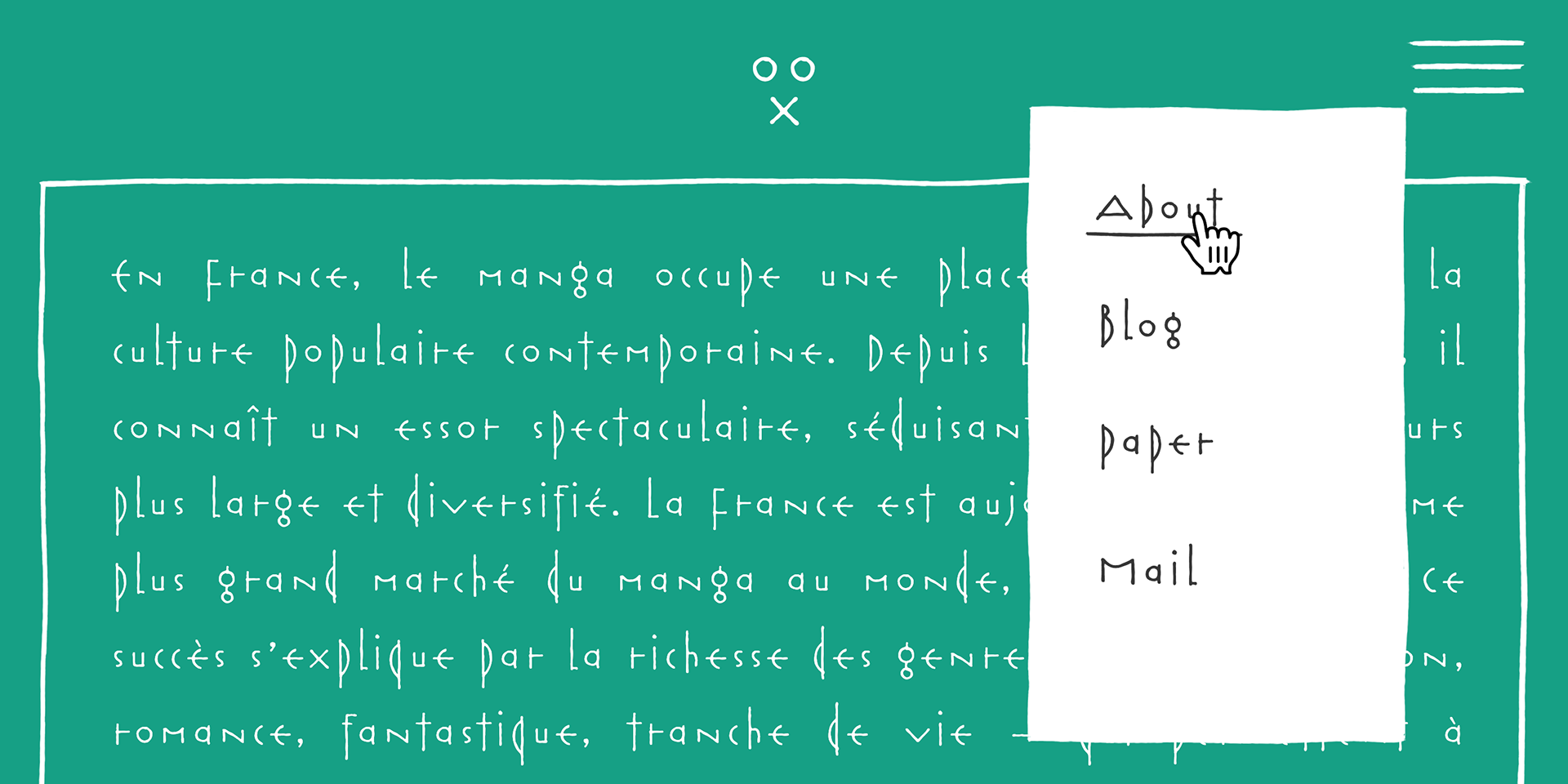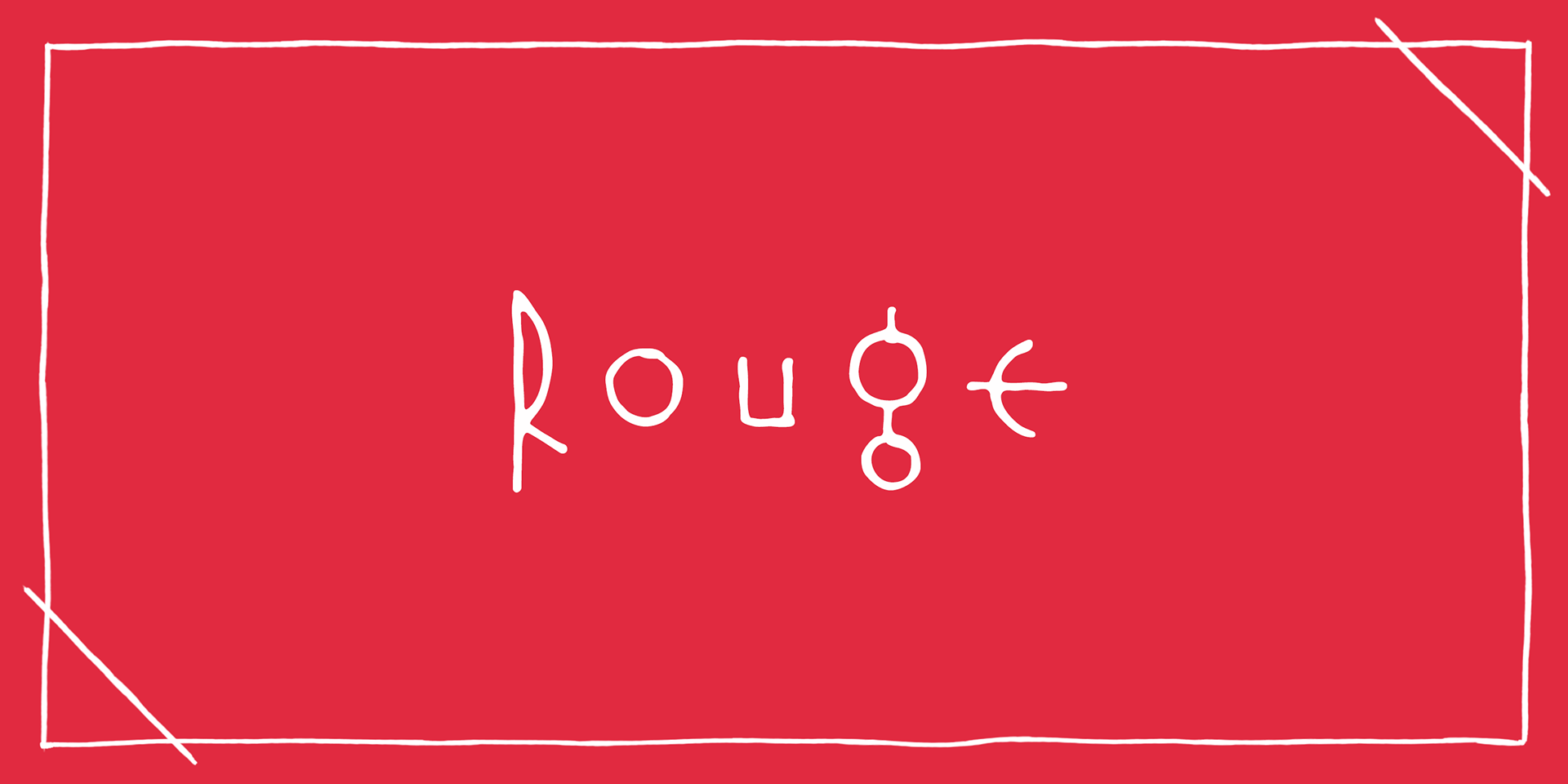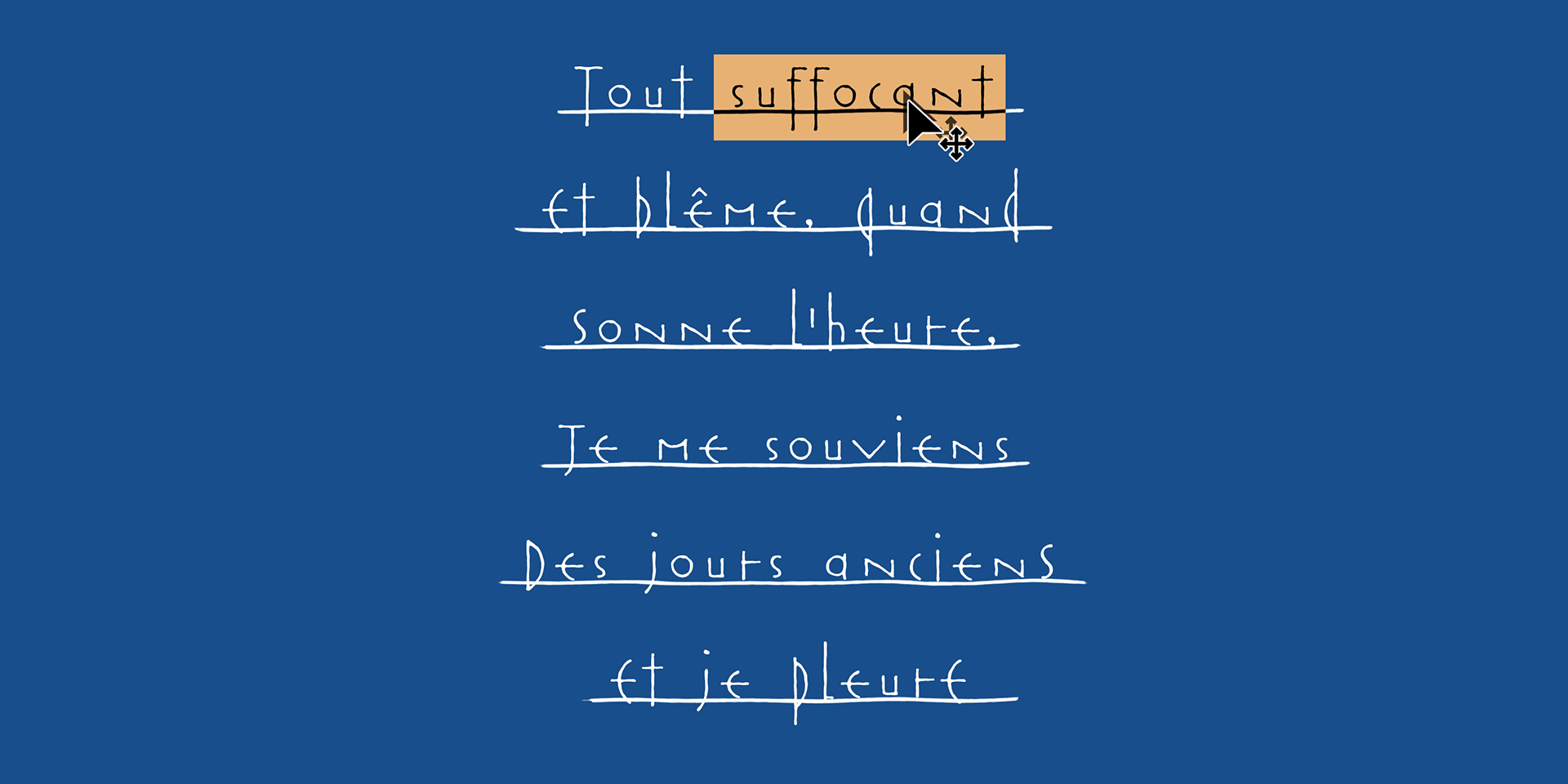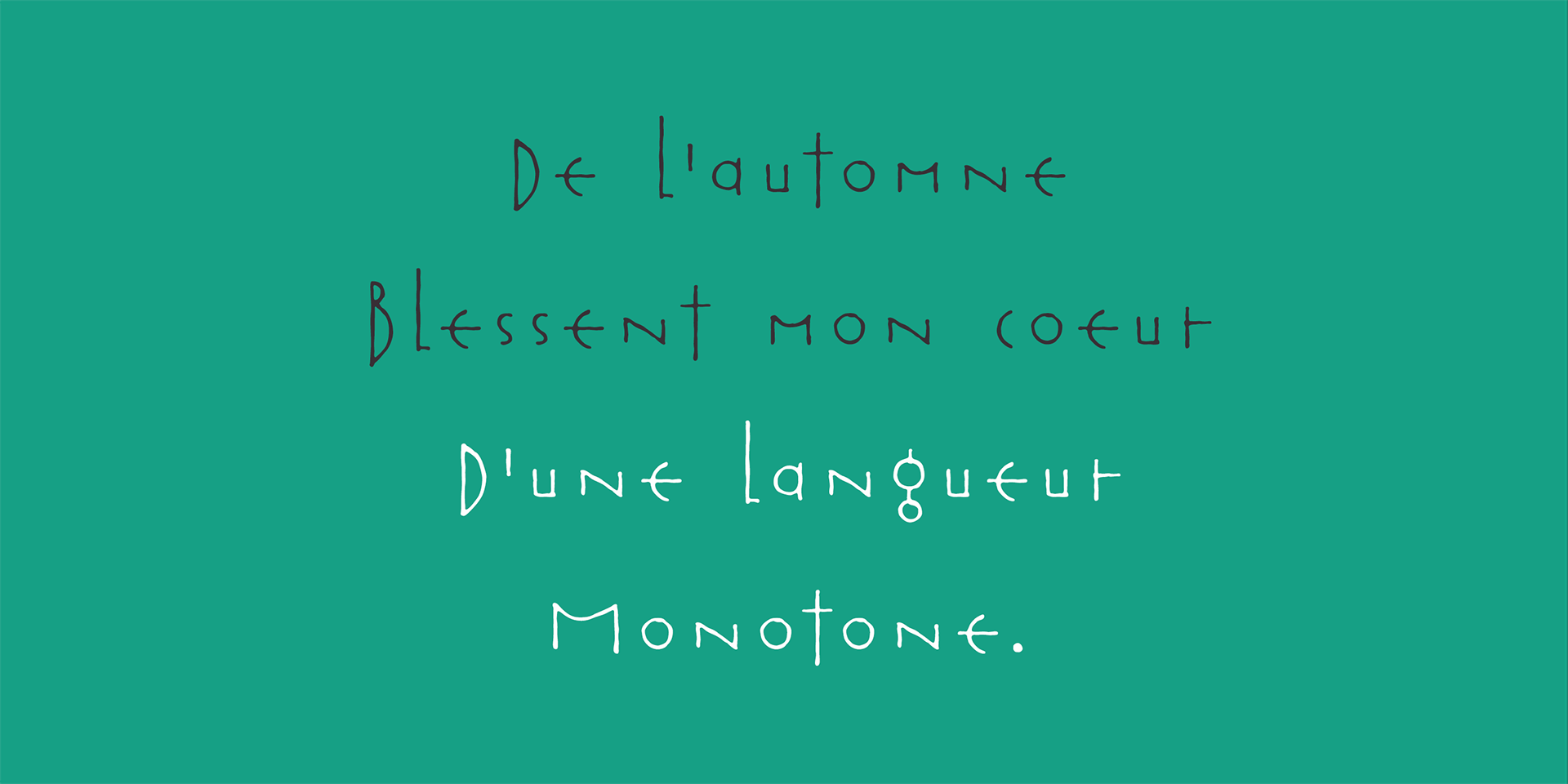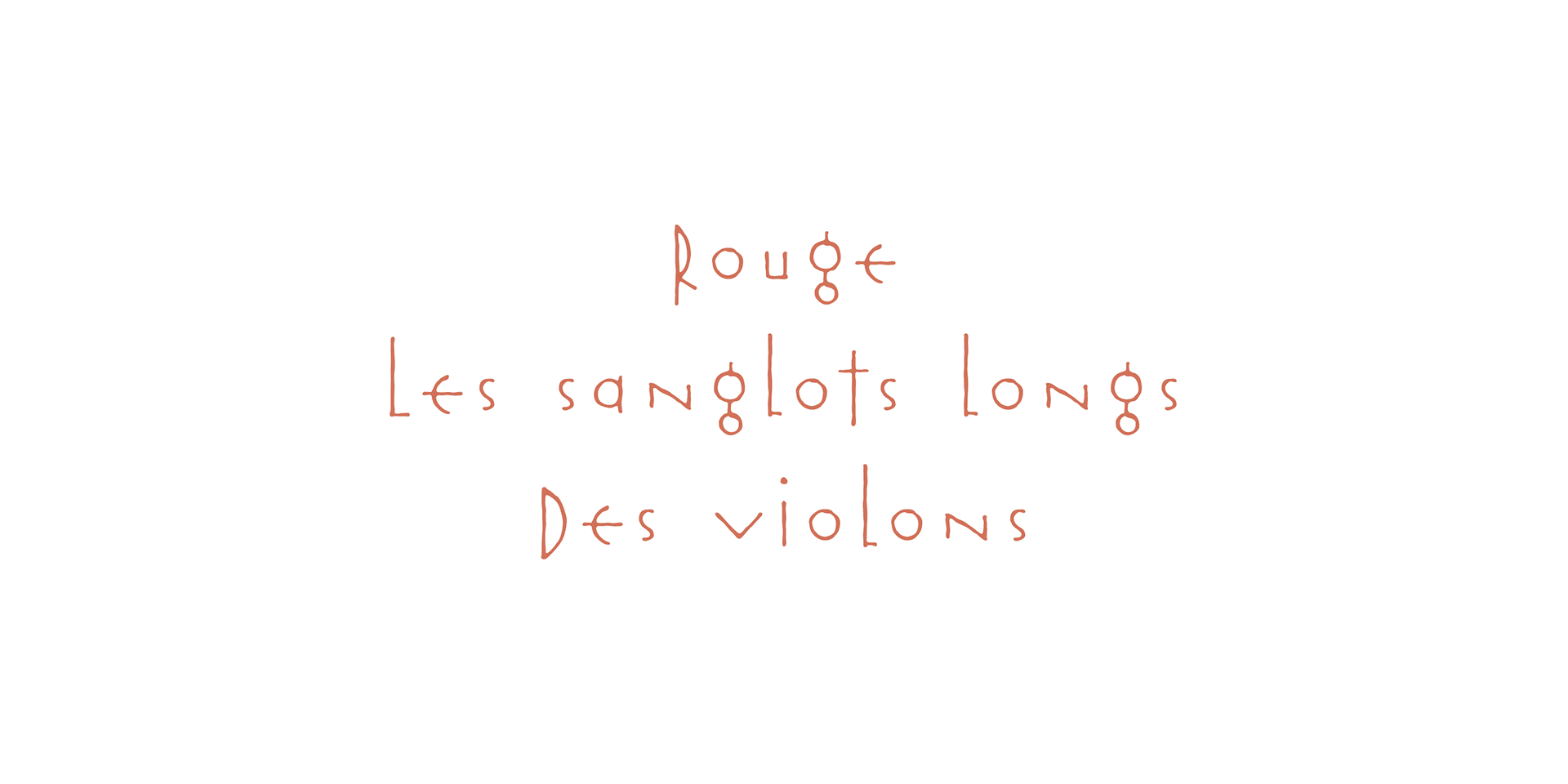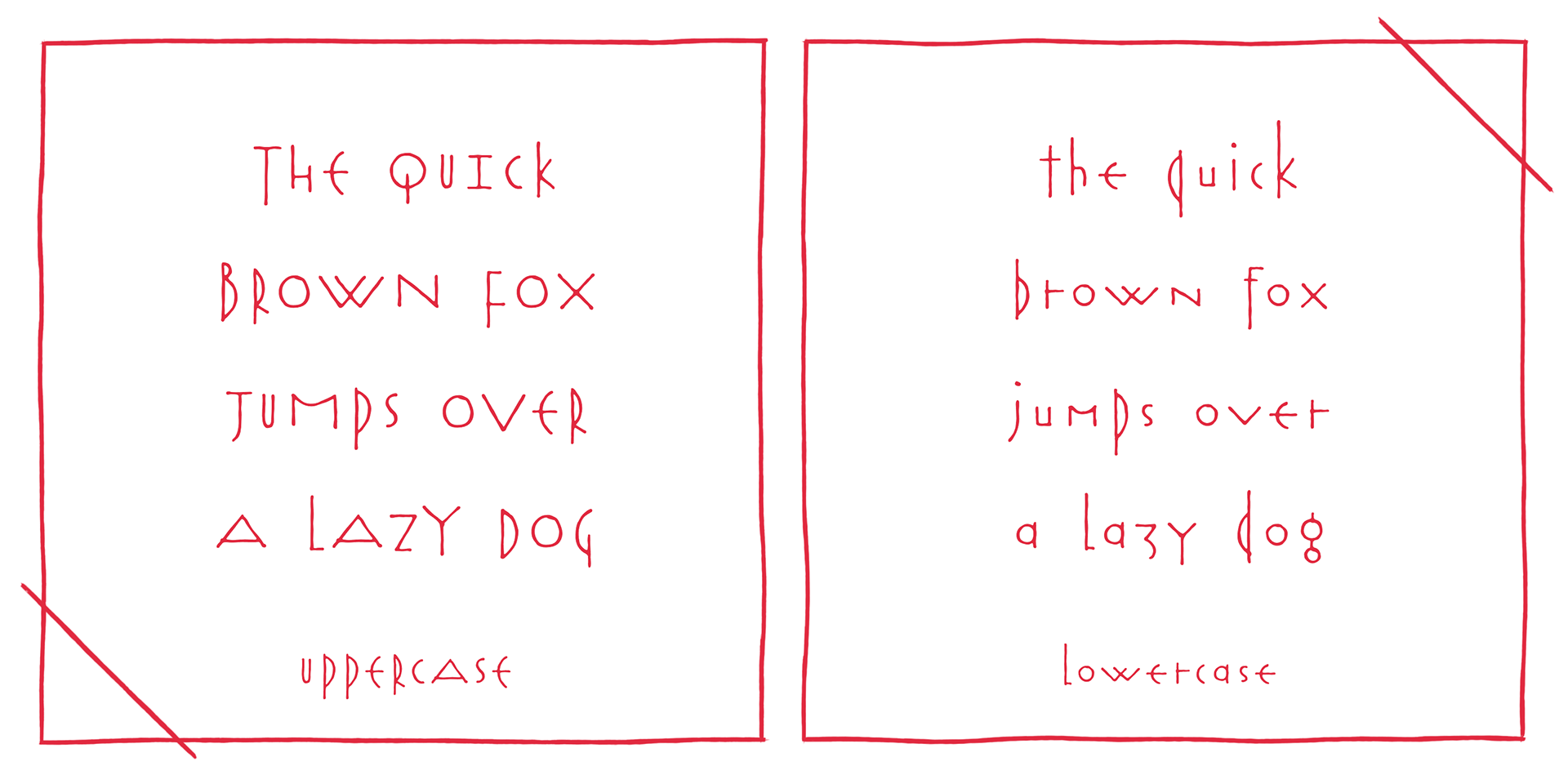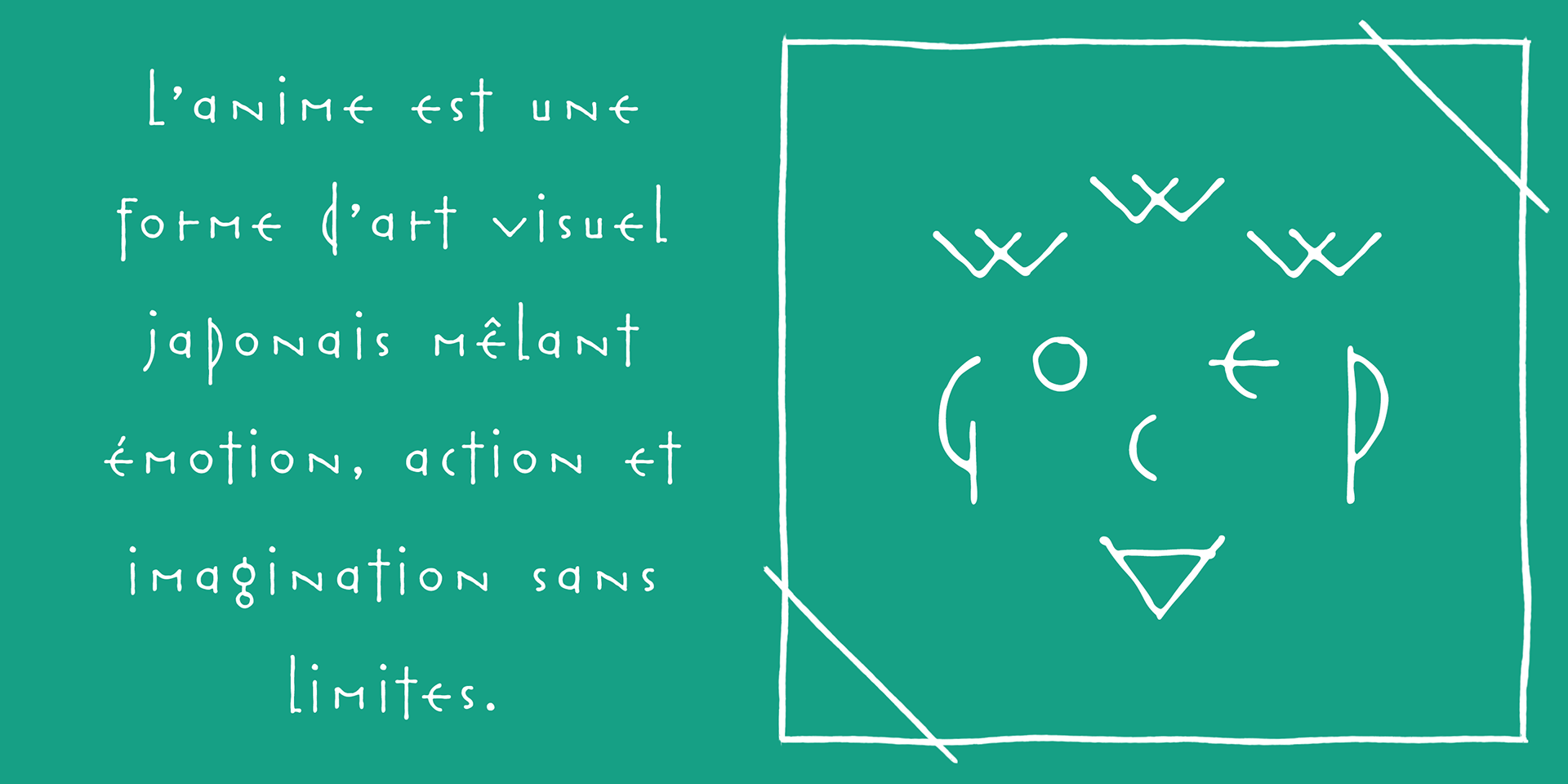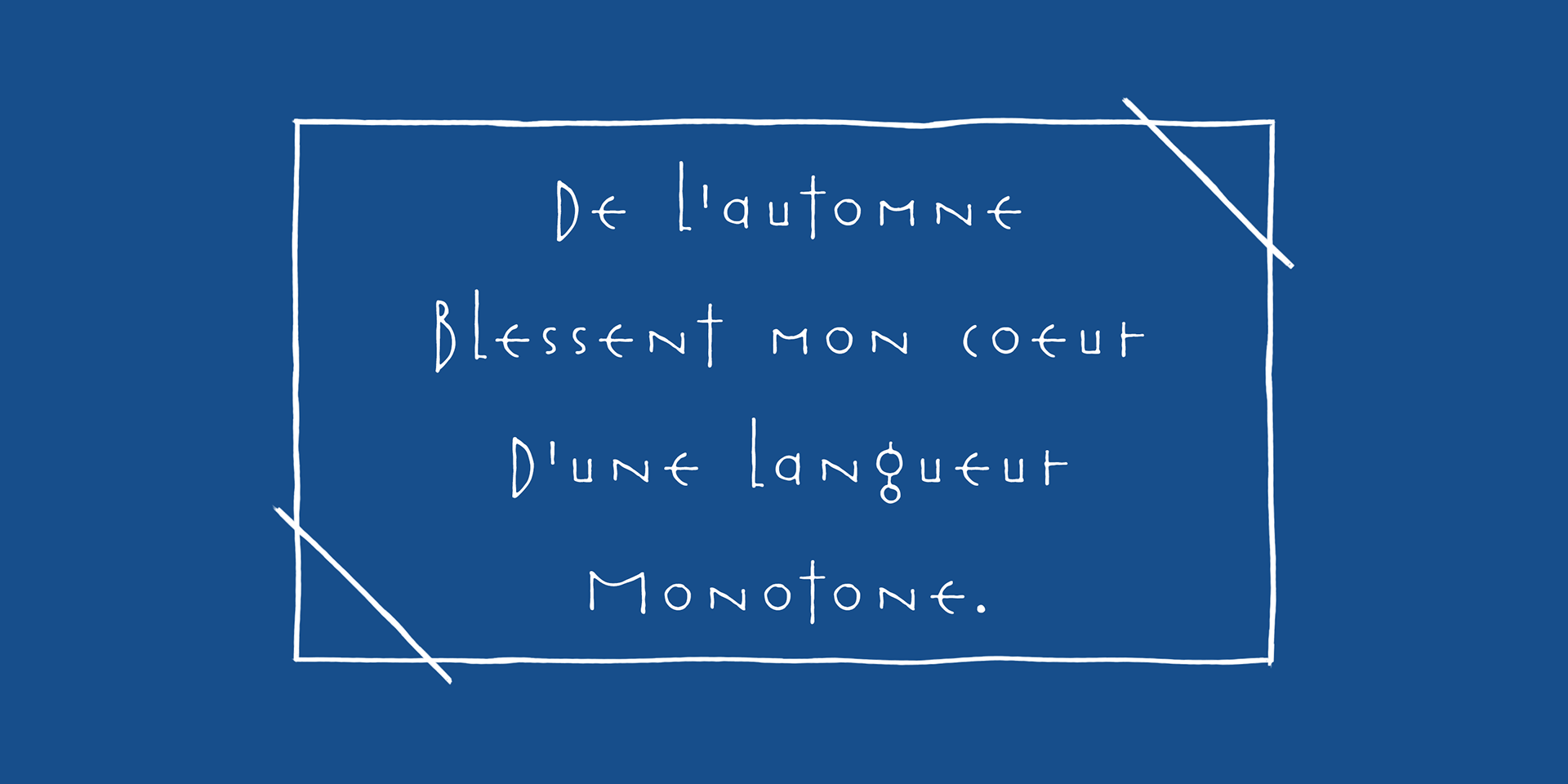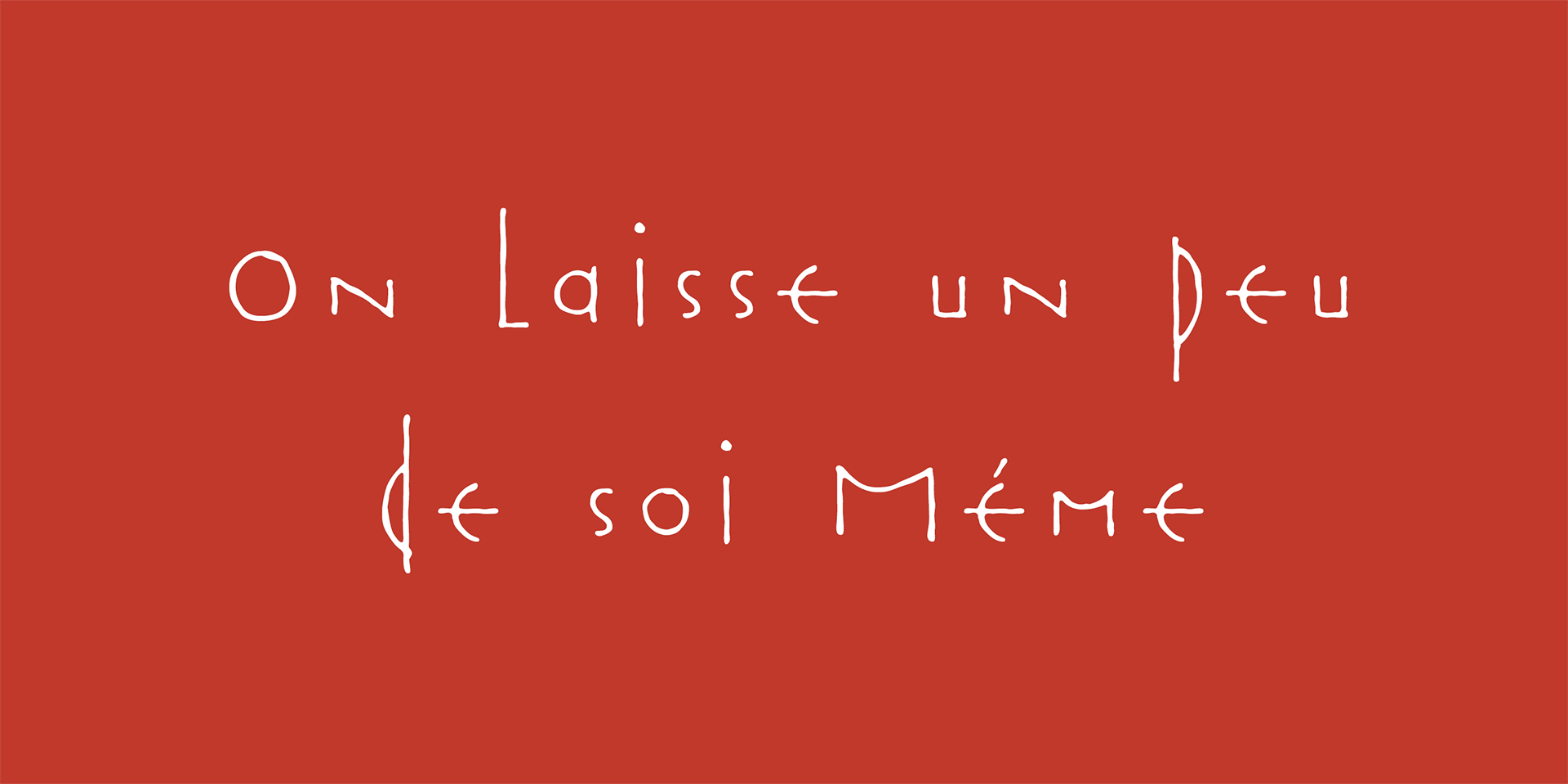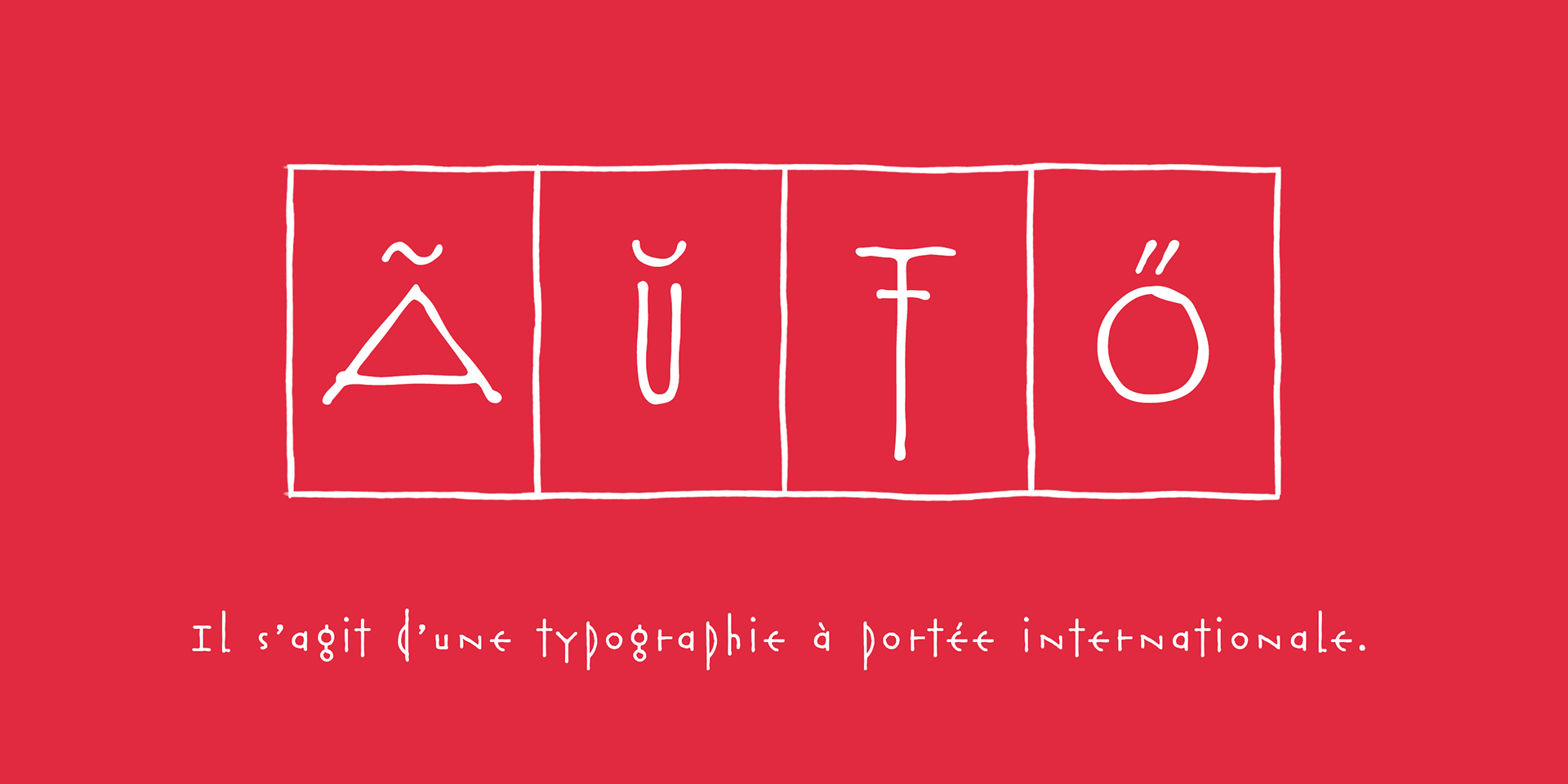
Rouge
This unique typeface was originally inspired by the image of lip rouge smeared on a windscreen.
Yet its abstract forms evoke different impressions for different viewers—some see something organic, others find it mathematical or even ancient.
It’s a font that invites interpretation and emotional response.